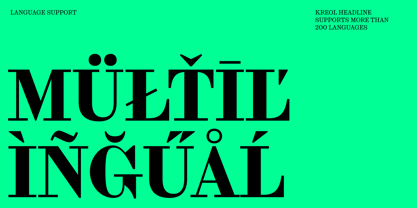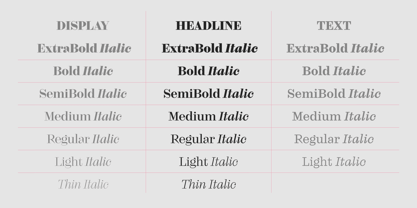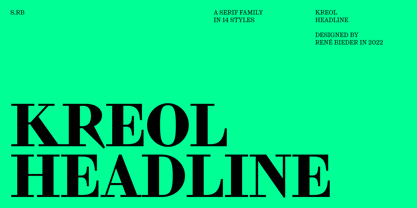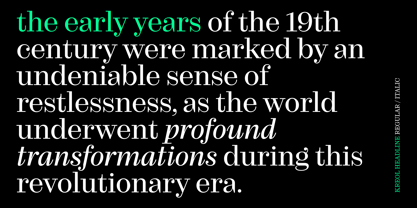
Kreol Standard
by René Bieder
The Kreol Standard Font Family was designed by René Bieder and published by René Bieder. Kreol Standard contains 14 styles and family package options. More about this family
The early years of the 19th century were marked by an undeniable sense of restlessness, as the world underwent profound transformations during this revolutionary era. It was amidst this dynamic backdrop that a wave of new typefaces emerged, boldly breaking away from traditional norms and pushing boundaries to captivate attention. Kreol, drawing inspiration from this rich heritage, carries the torch forward, bridging the gap between tradition and modernity with finesse. It serves as a refined and contemporary interpretation of an evergreen concept, embodying the timelessness of its roots while embracing the demands of the present. Kreol stands as a testament to the enduring power of typographic design, infusing it with a fresh perspective that resonates with contemporary audiences.
Kreol is available in three optical sizes – Text, Standard and Display– optimized for each specific typographic use case.
Designers: René Bieder
Foundry: René Bieder